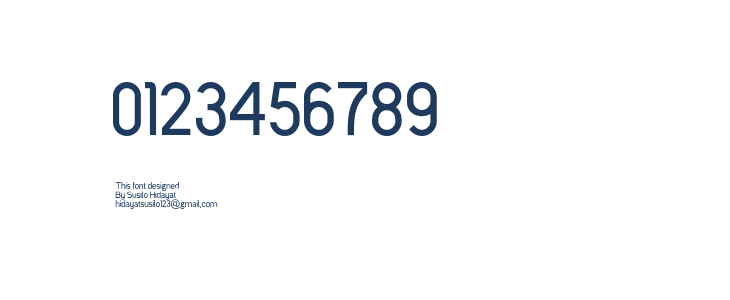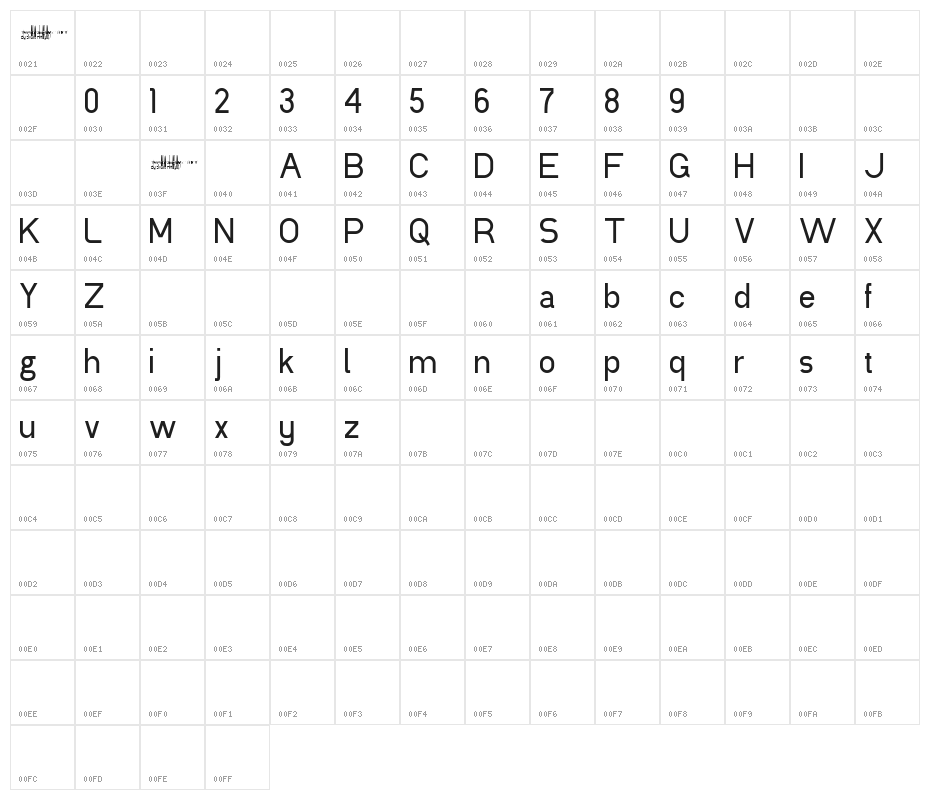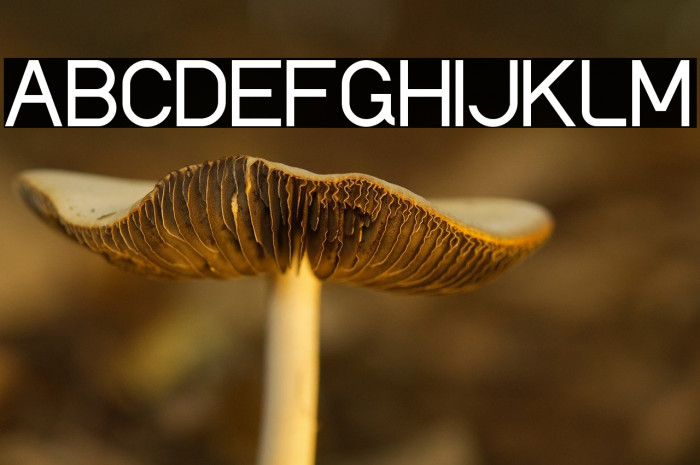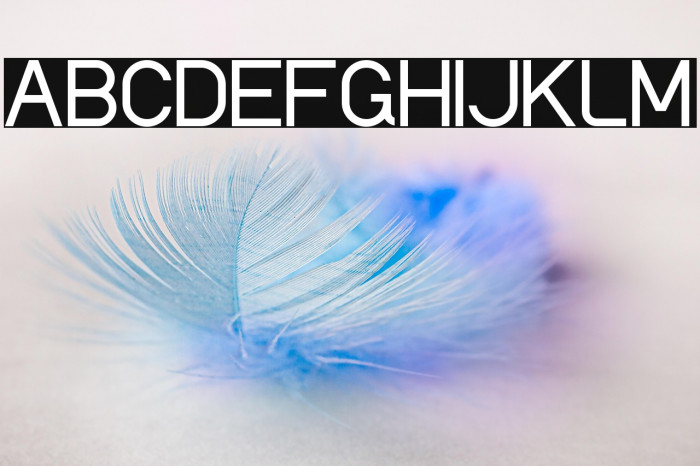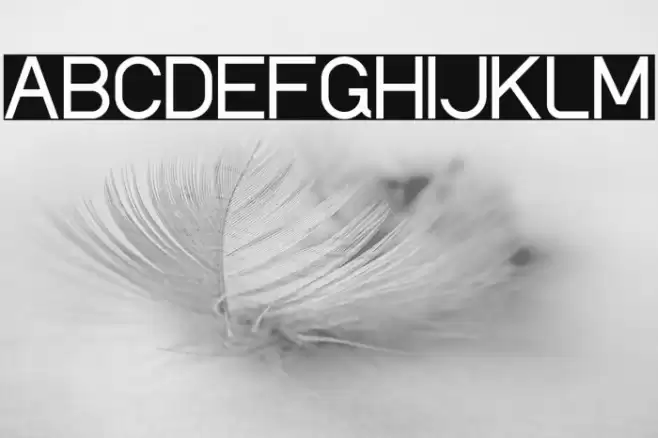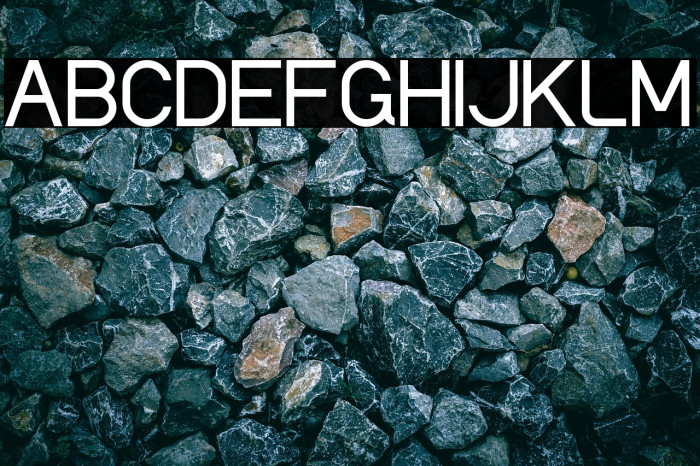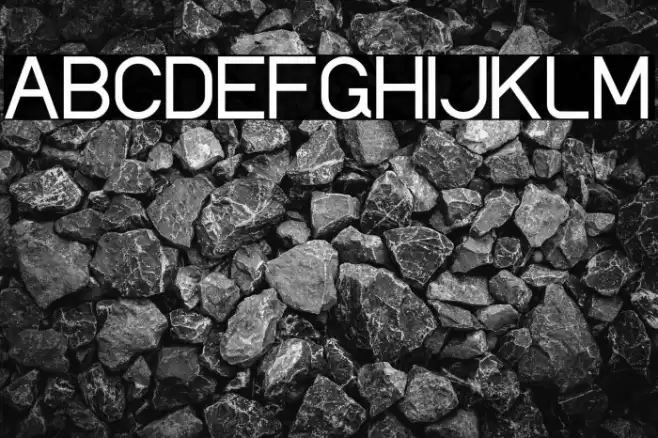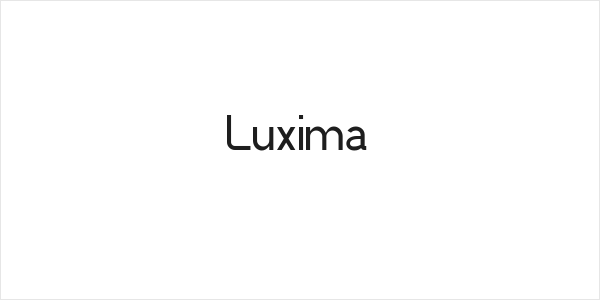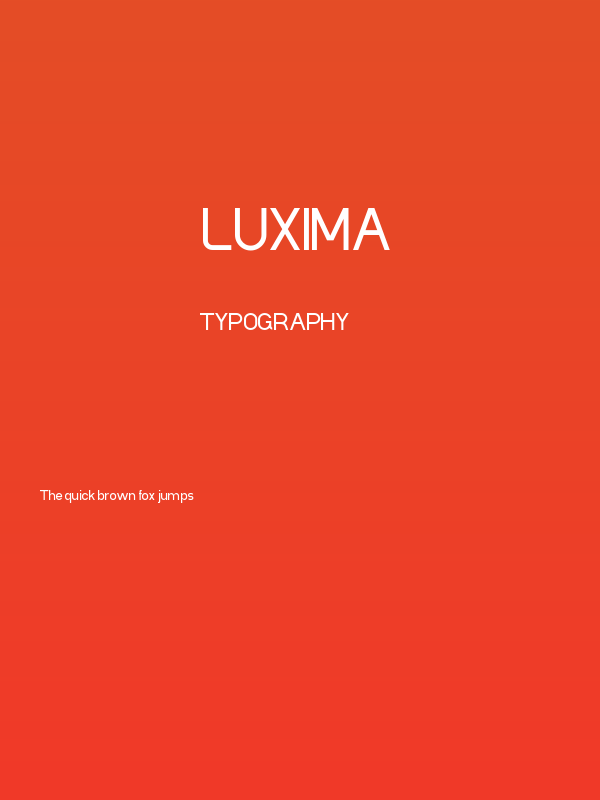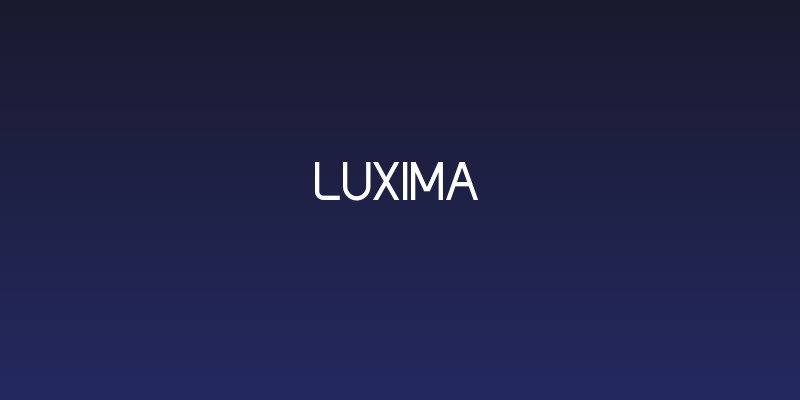
Luxima Font
Luxima Description
This font features a clean and modern sans-serif design with uniform stroke widths, creating a balanced and professional appearance. The uppercase letters are bold and assertive, while the lowercase letters maintain a consistent and approachable style. The numerals are clear and easily distinguishable, making them suitable for various applications. The special characters are well-integrated, ensuring versatility in design projects. The overall aesthetic is sleek and contemporary, making it ideal for both digital and print media.
| Proposed Projects | Ideal for branding, web design, corporate materials, and editorial layouts. |